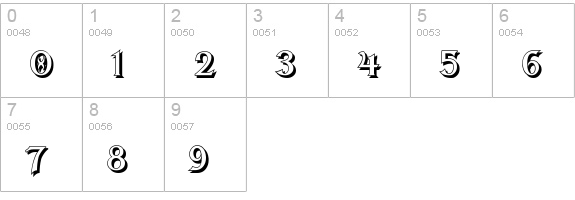
Dumbledor 1 Shadow font is a stunning display typeface that exudes elegance and sophistication. With its unique shadow effect, this font adds depth and dimension to any design project. The intricate details and stylish curves make Dumbledor 1 Shadow font perfect for branding, packaging, posters, and more. What's even better is that Dumbledor 1 Shadow font is available for free download at FontsMarket.com. This means you can easily access this premium font without any cost. Don't miss out on the opportunity to elevate your designs with the exquisite Dumbledor 1 Shadow font, now just a click away for free at FontsMarket.com.